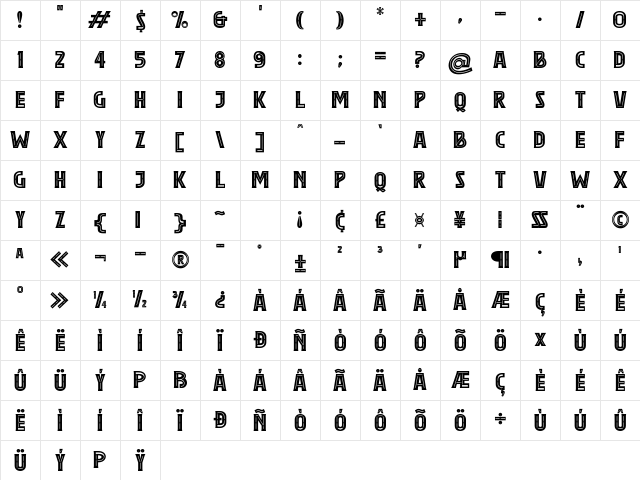
Complete American Champion Regular glyph index. Displaying only characters natively supported by American Champion Regular font.
American Champion is a composed and adaptable typeface that performs quietly and consistently across a wide range of design contexts.